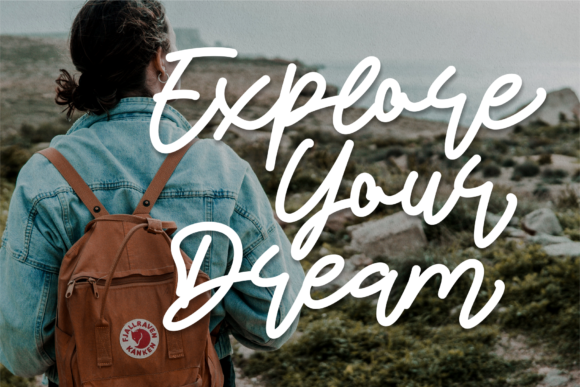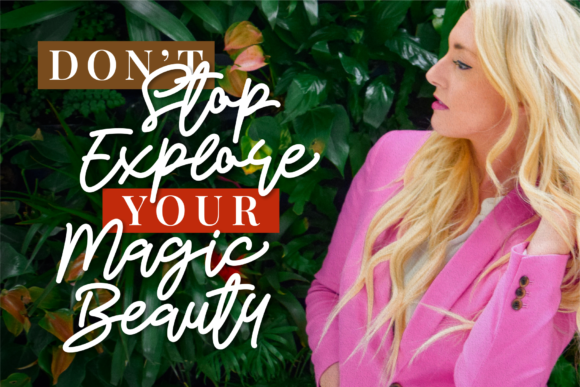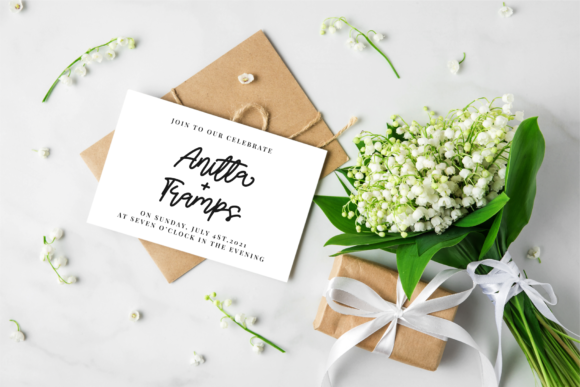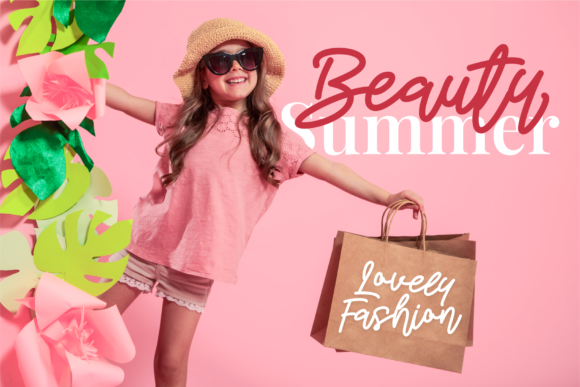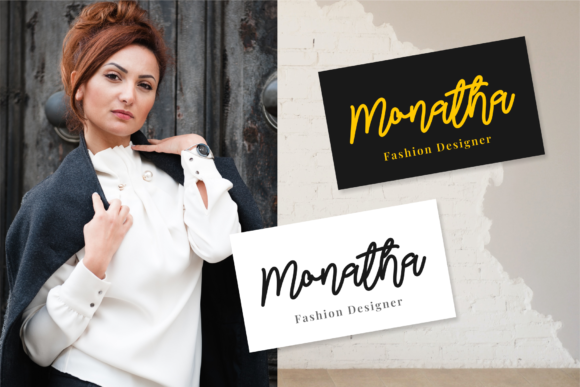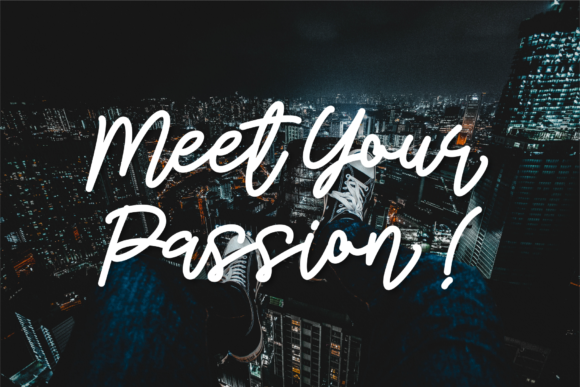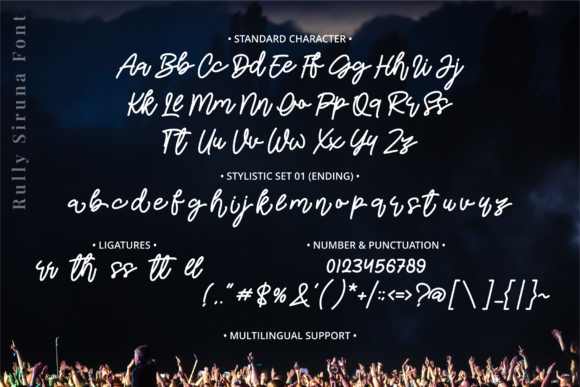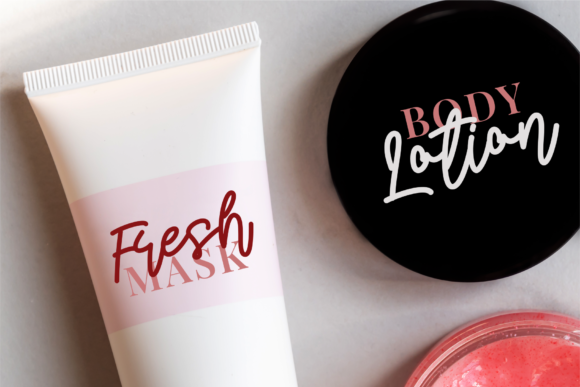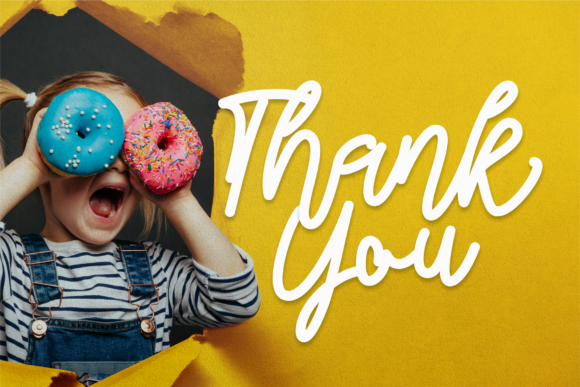
Rully Siruna Font
Rully Siruna is a simple and flowing handwritten font. This adaptable font will look great on a variety of design ideas. Rully Siruna is PUA encoded which means you can access all of the glyphs and swashes with ease!